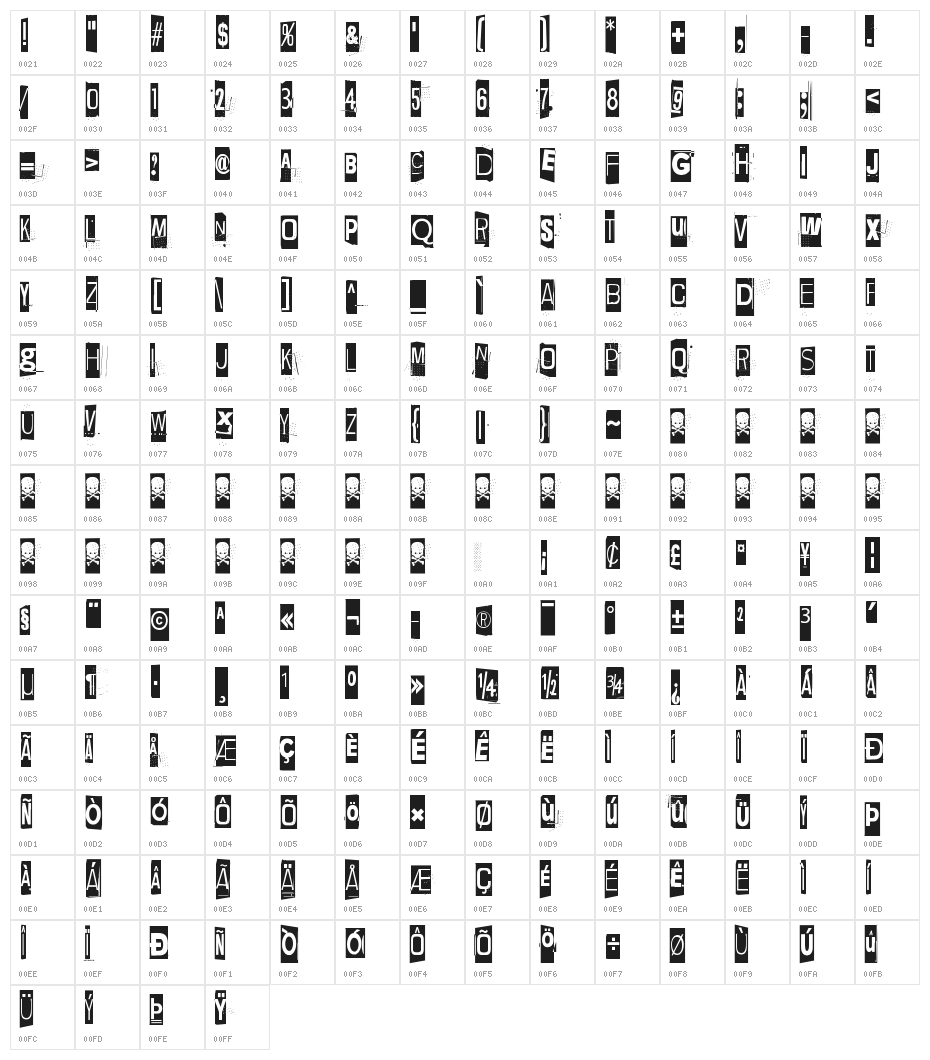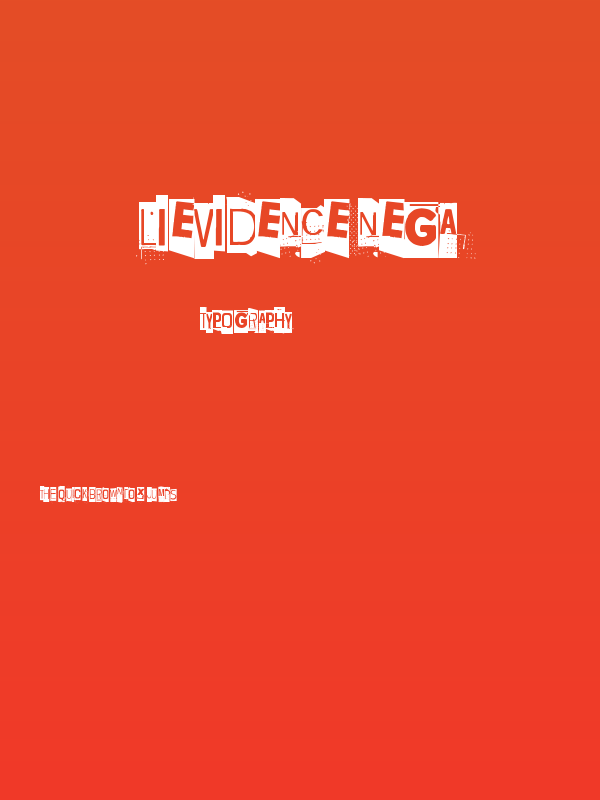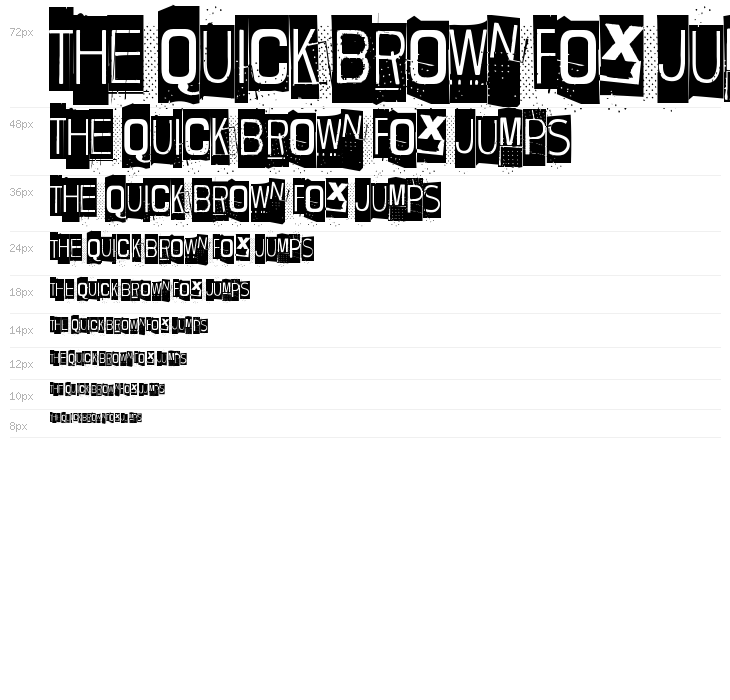
Lievidence Nega Font
Lievidence Nega Description
This font features a unique, eclectic style reminiscent of ransom notes, with each character appearing as if cut from different sources. The letters are bold and vary in style, with some having a distressed or grunge effect. The uppercase and lowercase letters, as well as numbers and special characters, are all distinct, adding to the chaotic yet artistic appearance. The font's design is highly decorative, making it ideal for projects that require a bold, unconventional look. The characters are set against a black background, enhancing their stark, contrasting appearance.
| Use Case | Headlines, Posters, Creative Designs |
| Proposed Projects | Ideal for creative projects such as posters, album covers, or any design requiring a bold, unconventional aesthetic. |